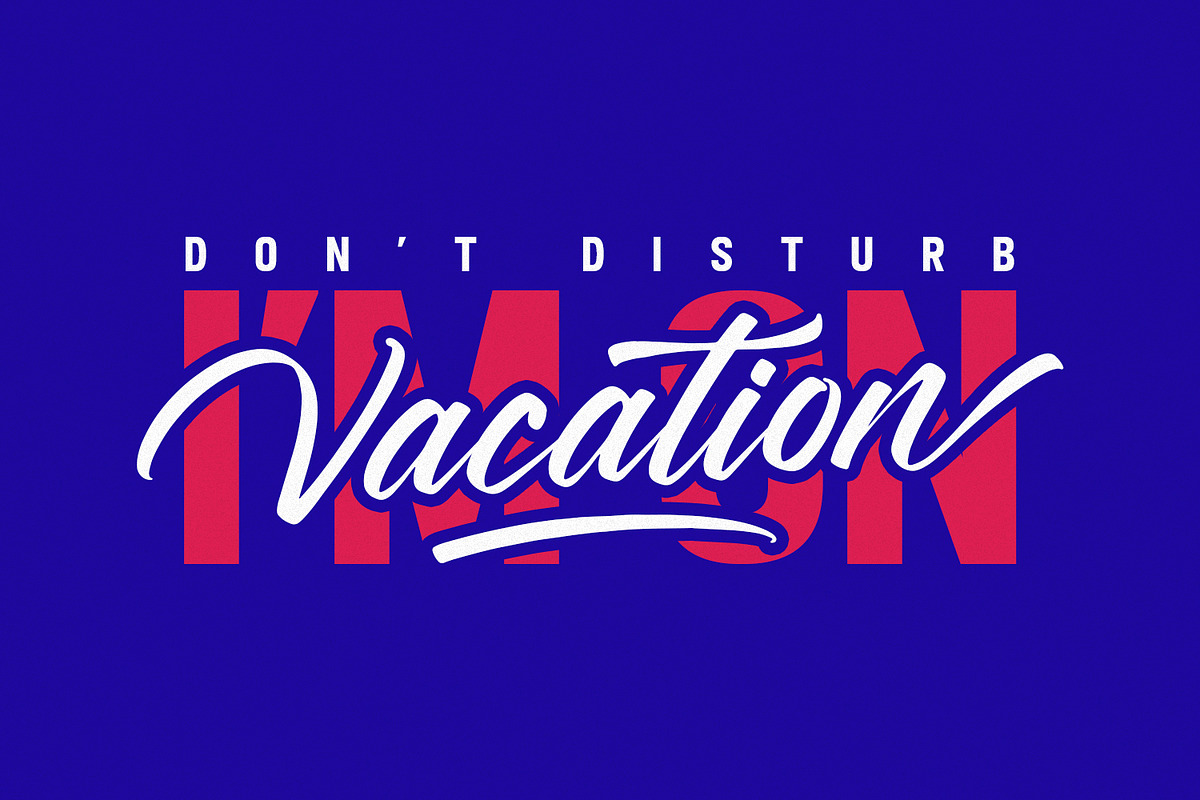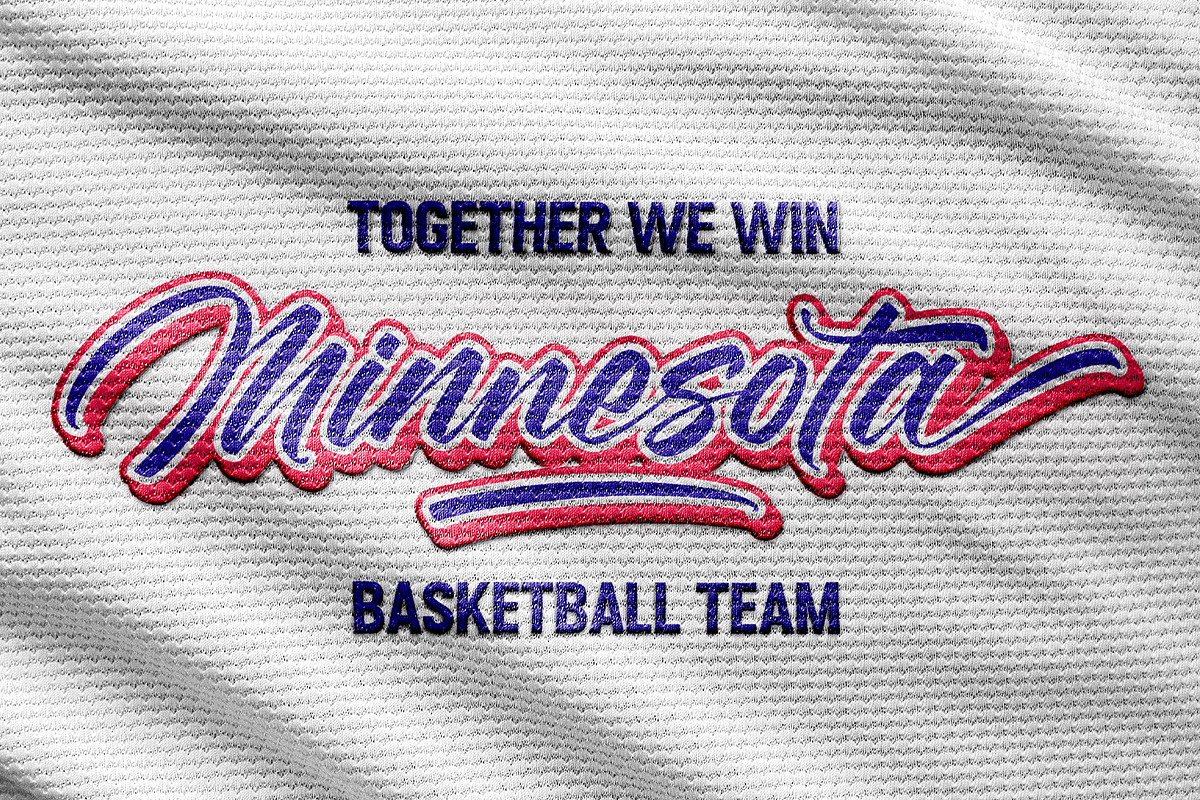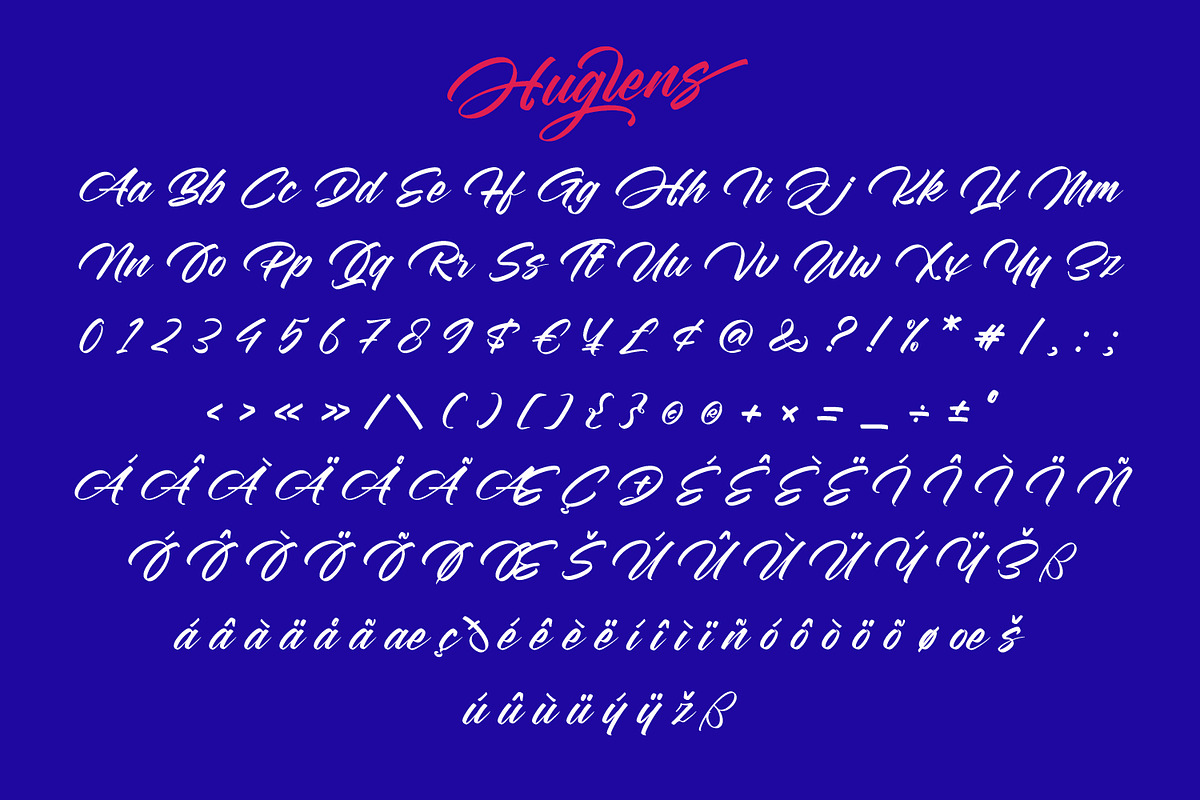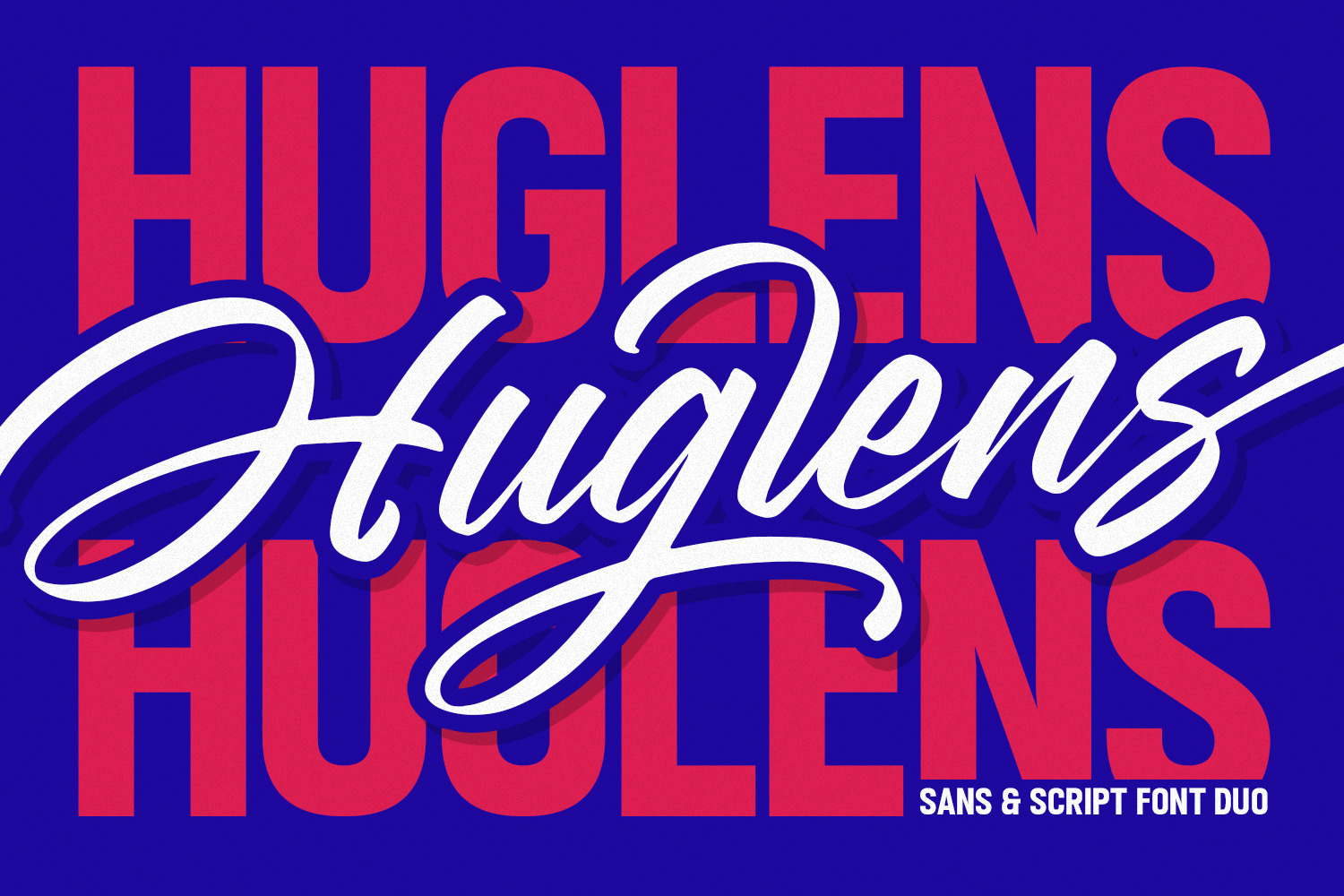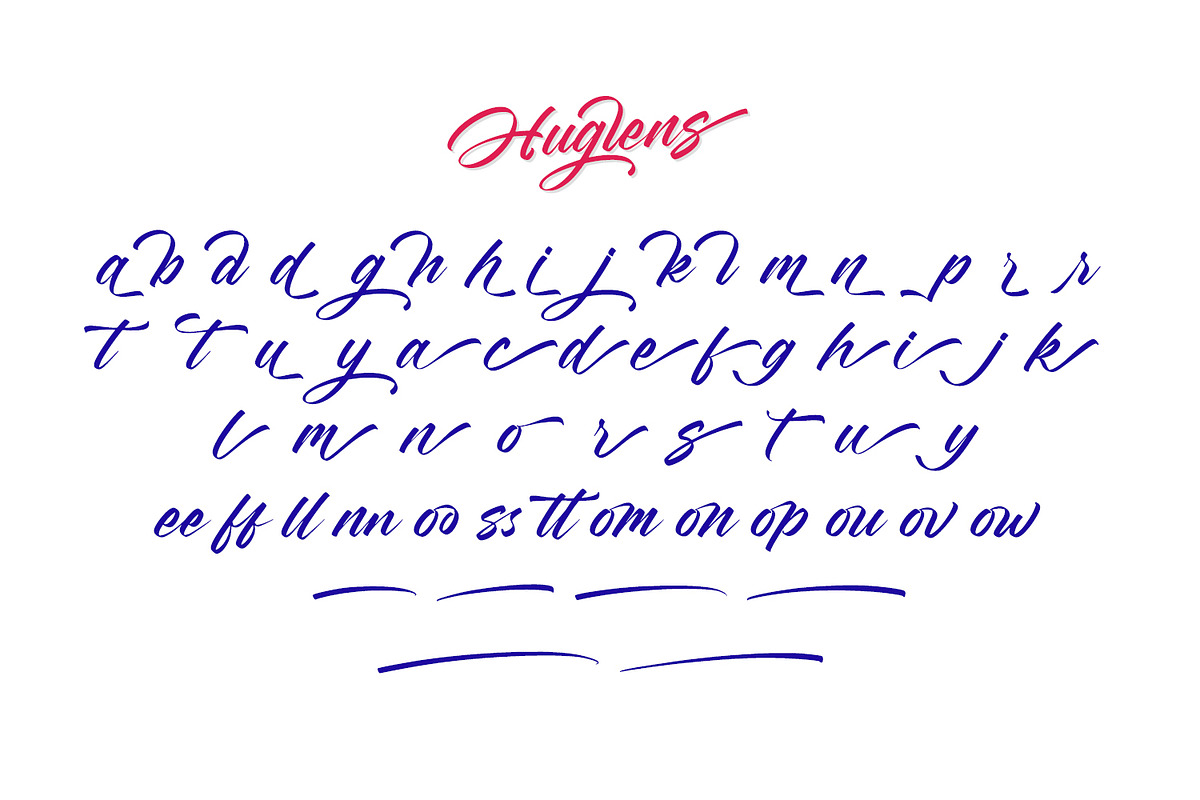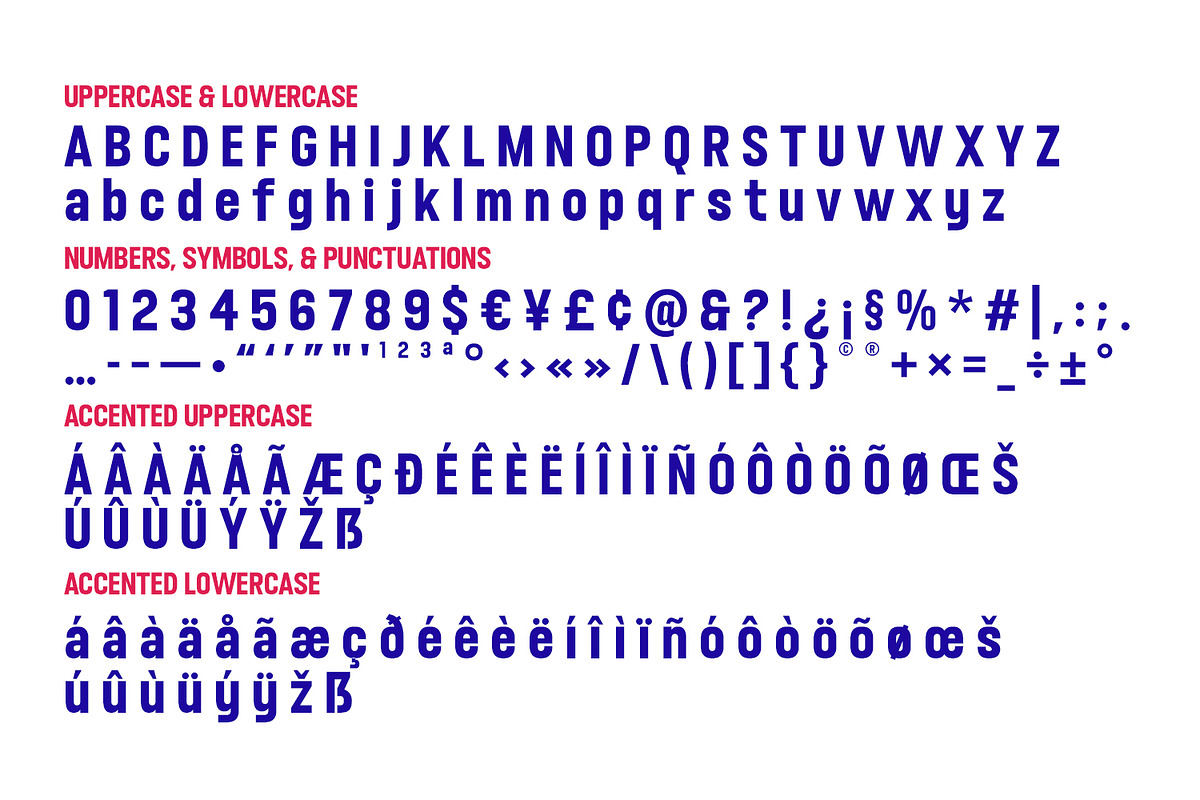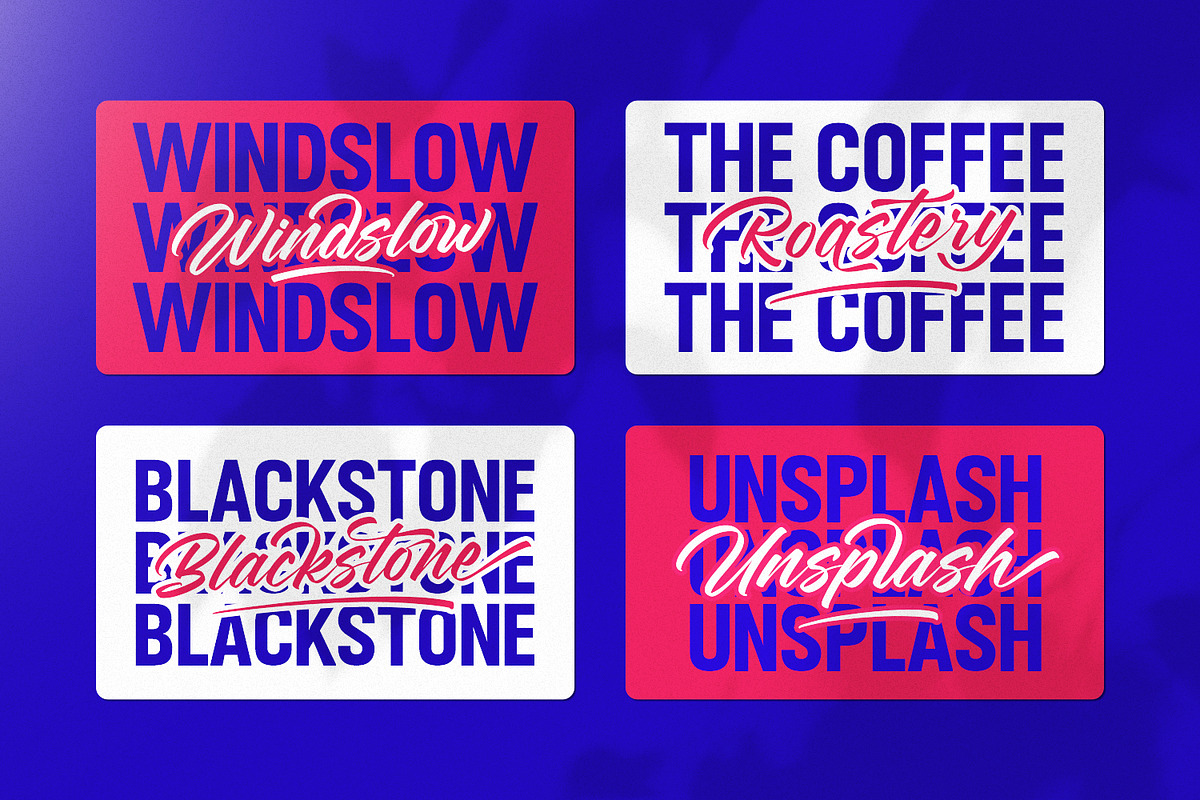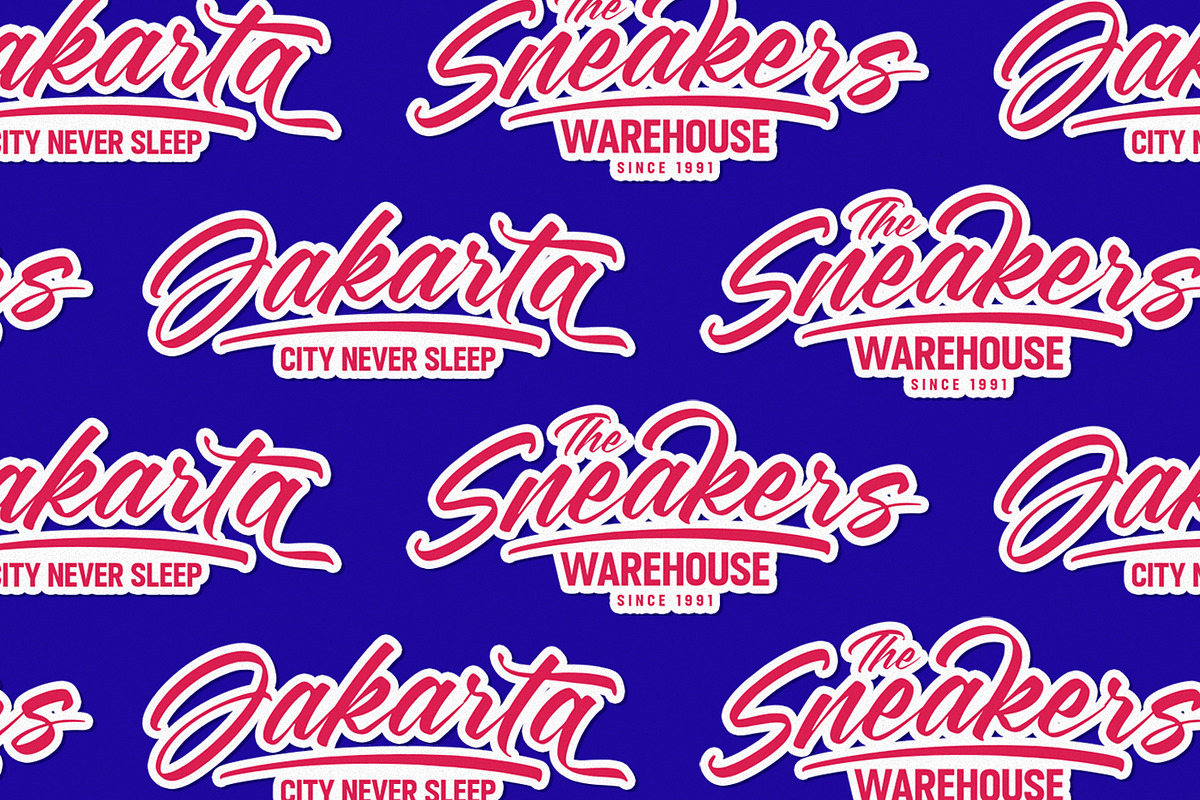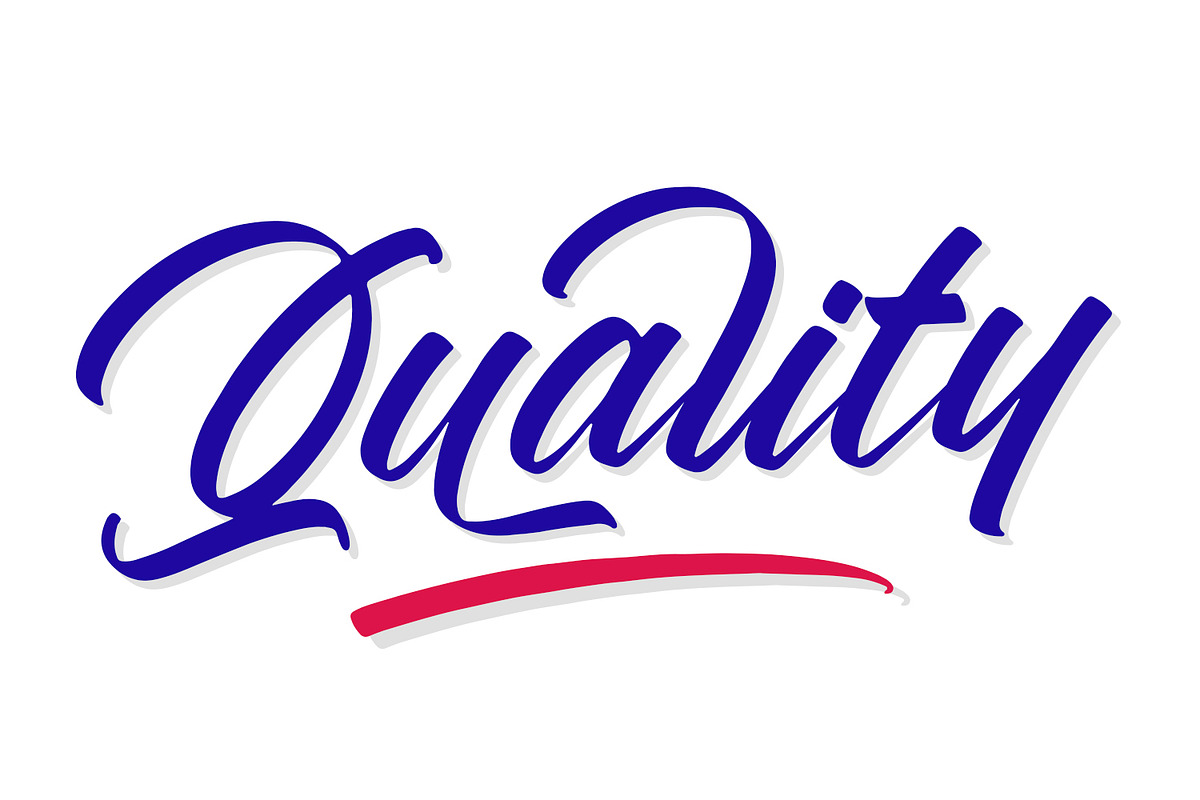
Huglens - Sans & Script Font Duo
Huglens is a bold and energetic Sans & Script font duo created for strong, modern, and expressive branding. The powerful sans serif delivers confidence and impact, while the dynamic script adds motion, personality, and a handcrafted touch. Designed to work seamlessly together, Huglens is recommended for logos, sports branding, streetwear, posters, packaging, headlines, social media, and eye-catching visual identities. This font duo helps you build striking typography that feels modern, confident, and full of character.
FONT FEATURES
Huglens Script Features
Additional Accents
68 Languages
Kerning
Huglens Sans Features
Additional Accents
84 Languages
Kerning